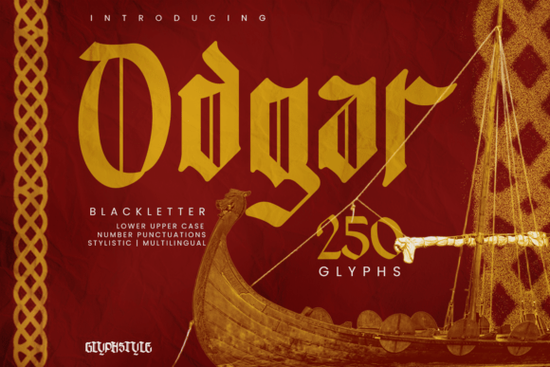
If you're working on a design that calls for bold, historic energy like Viking shields, fantasy book covers, or warrior-themed merch the Odgar Blackletter Font brings authentic medieval presence without feeling dated. Inspired by Norse mythology and the rugged aesthetics of ancient Scandinavian culture, this typeface uses sharp angles, heavy strokes, and classic blackletter structure to channel strength and legacy in every letterform.
Unlike overly ornate gothic fonts that can feel cluttered at small sizes, Odgar balances drama with readability. It’s especially useful for creators who need a font that stands out on posters, apparel, logos, or game assets but still holds up when printed or scaled down. Whether you’re designing a tabletop RPG campaign, branding a mead company, or crafting album art for a folk-metal band, this font adds instant atmosphere.
What makes Odgar work for modern projects?
Blackletter fonts often lean heavily into religious or Germanic traditions, but Odgar draws from Viking heritage instead think runes, longships, and sagas rather than cathedral manuscripts. This subtle shift gives it a more adventurous, heroic tone that fits fantasy and historical niches better than generic gothic styles.
It also includes a full set of uppercase and lowercase characters, plus numerals and punctuation designed to match its angular rhythm. That means you don’t have to rely on all-caps layouts (which can feel aggressive) unless you want to. You can mix case for titles, subtitles, or even short paragraphs while keeping visual consistency.
How does it compare to other blackletter fonts?
If you’ve browsed Creative Fabrica’s blackletter collection, you might’ve seen options like Fairyesta, which blends gothic structure with delicate flourishes great for fairy tales or romantic fantasy. Or there’s Malvoid, a more industrial take with tighter spacing and sharper serifs, ideal for cyberpunk or dystopian themes.
Odgar sits in a different lane: raw, earthy, and rooted in Northern European lore. It doesn’t try to be elegant or futuristic it’s meant to evoke axe-hewn wood, weathered stone, and oral epics passed down through generations. That specificity is why it works so well for niche projects where authenticity matters.
Who should use this font?
Odgar isn’t for minimalist brands or corporate reports but if your work leans into storytelling, history, or myth, it’s worth testing. Here’s who benefits most:
- Print-on-demand sellers creating Viking-themed T-shirts, mugs, or wall art
- Indie game developers building UI text or title screens for Norse-inspired worlds
- Book cover designers working on historical fiction, dark fantasy, or saga retellings
- Small craft businesses branding artisanal goods like leather journals, candles, or mead labels
- Hobbyists making custom invitations for medieval fairs, LARP events, or reenactments
Just remember: blackletter fonts like Odgar work best as display type. Avoid using them for body text or tiny labels they shine in headlines, logos, and short impactful phrases.
Tips for pairing and using Odgar effectively
Because Odgar has such strong character, pair it with simple, neutral fonts to avoid visual competition. Clean sans-serifs like Montserrat, Lato, or even basic Helvetica let the blackletter take center stage without clashing.
Also consider texture overlays subtle paper grain, stone, or metal effects can enhance its ancient vibe without overwhelming the design. And if you’re using it digitally, test contrast carefully; those thick strokes can disappear on dark backgrounds unless you add a stroke or shadow.
- Is your project themed around Vikings, mythology, or historical adventure?
- Will the font be used for headlines, logos, or short text not paragraphs?
- Do you have a clean, minimal font ready to pair with it?
If you answered yes to most of these, Odgar Blackletter Font could be the authentic, bold touch your next design needs.